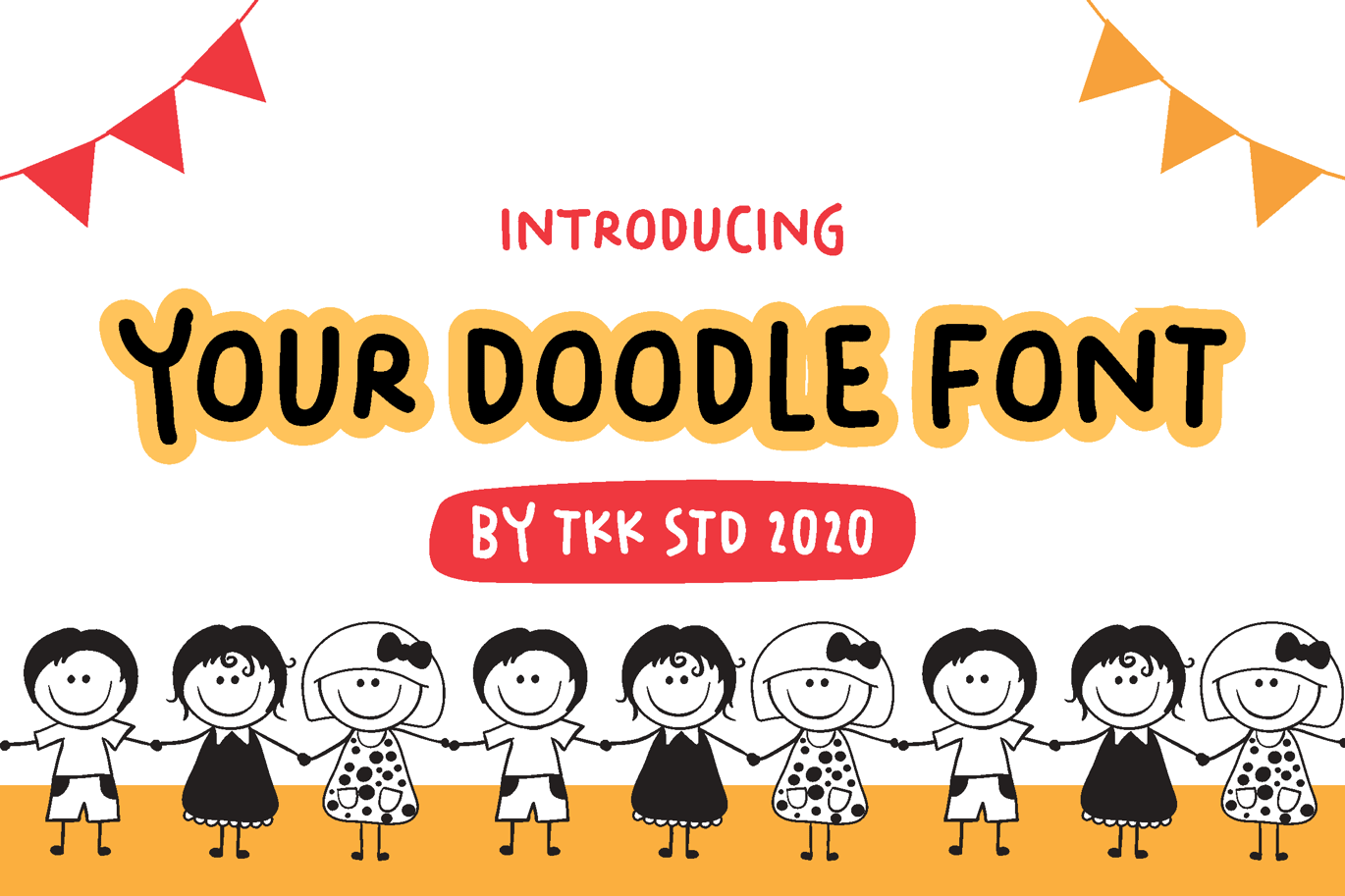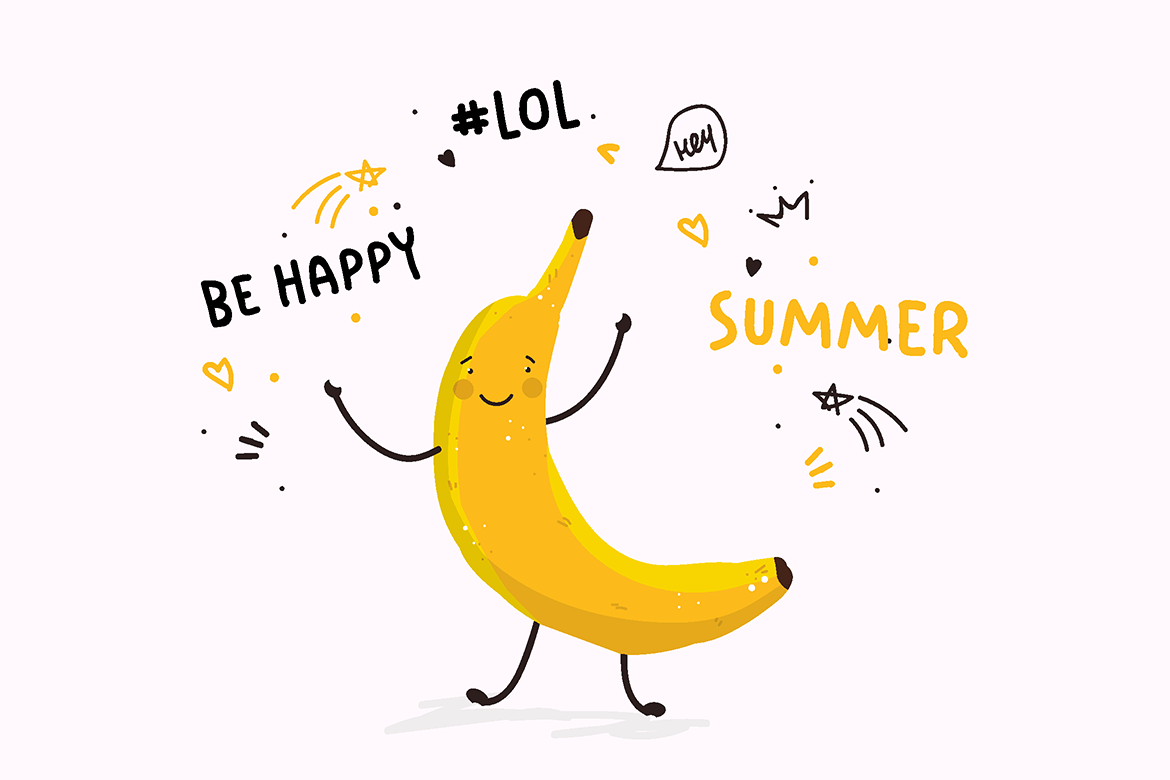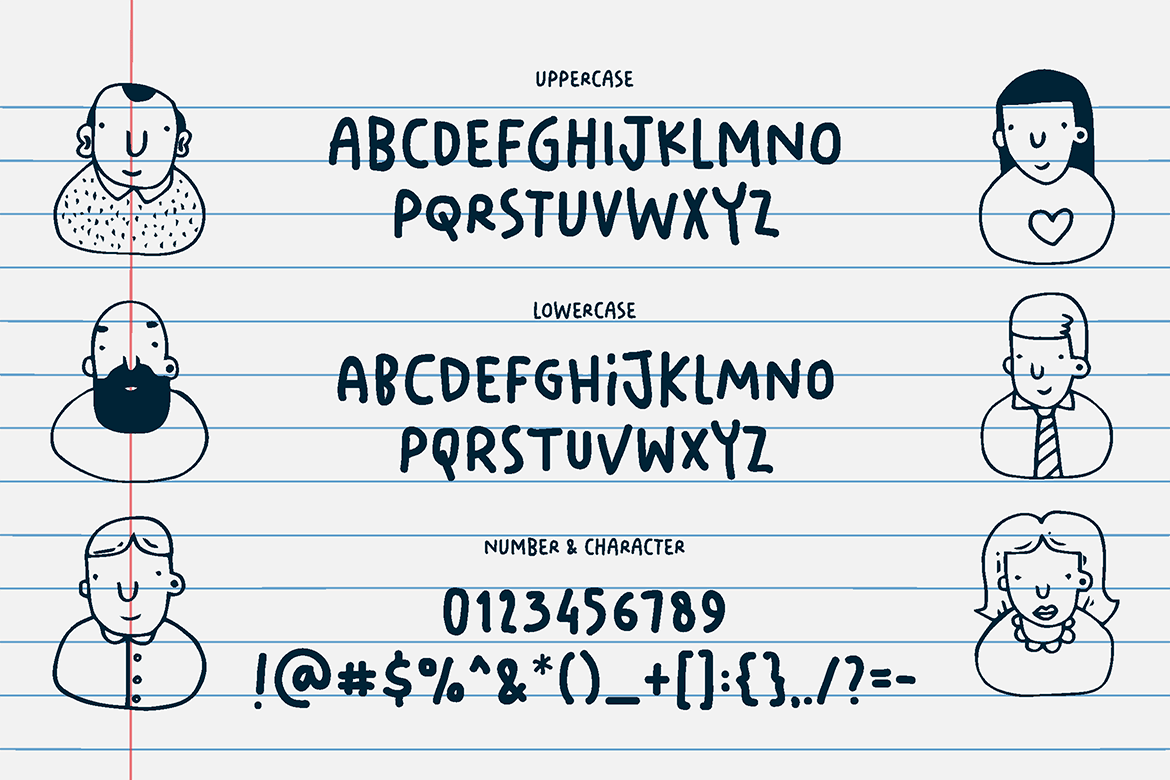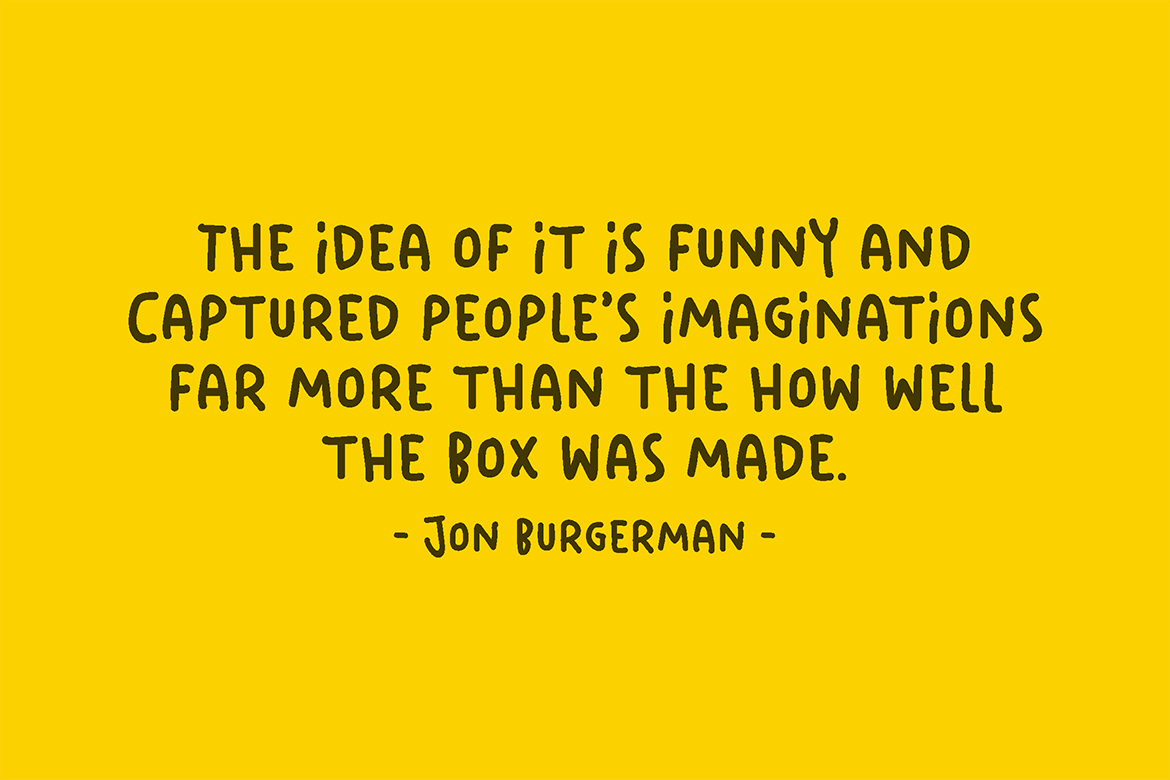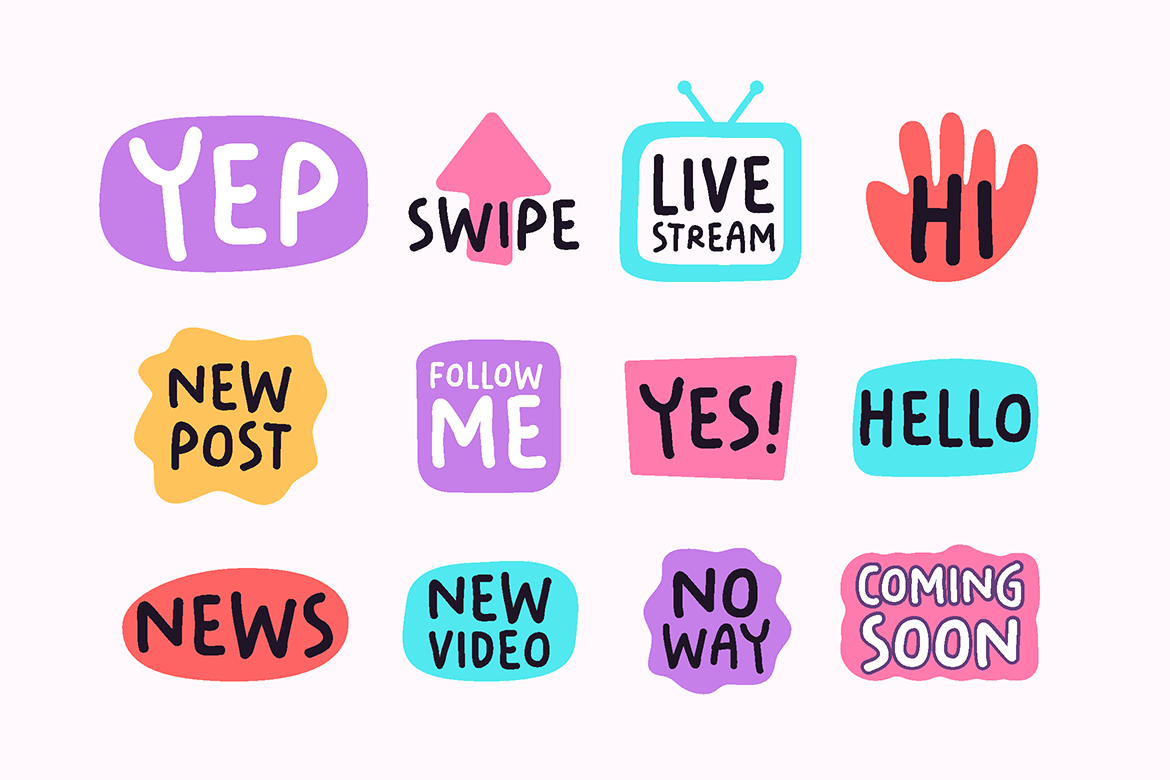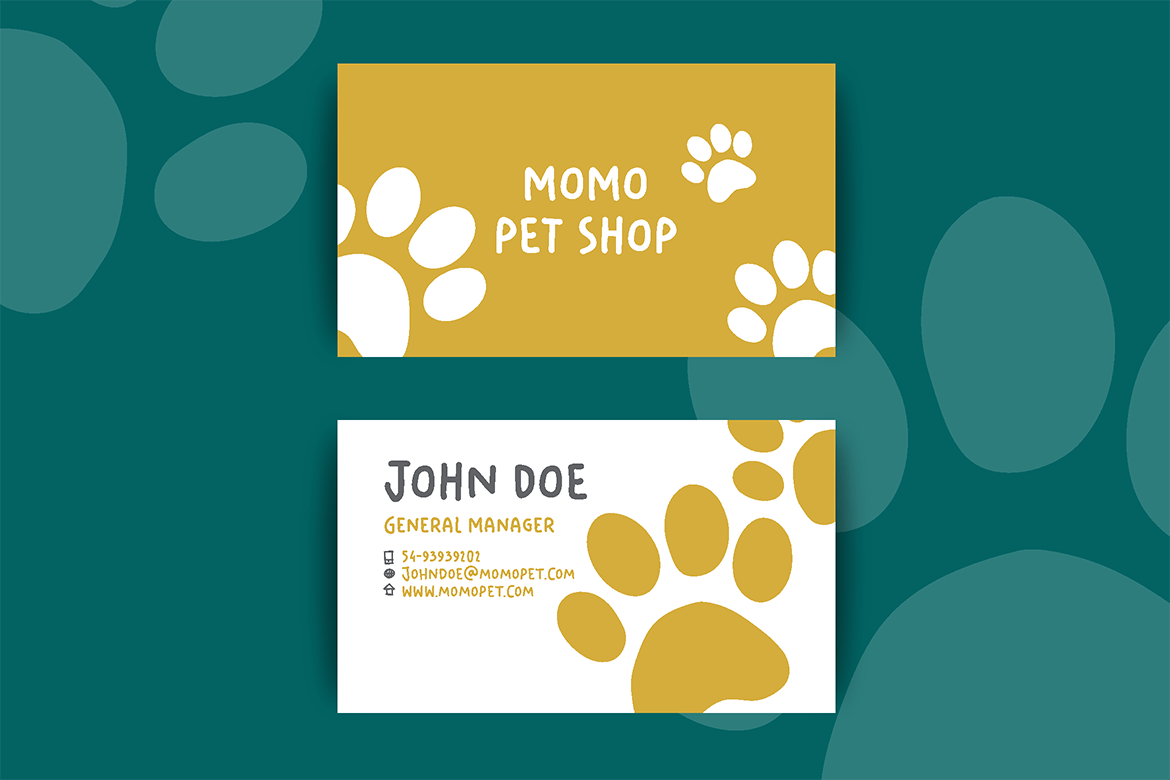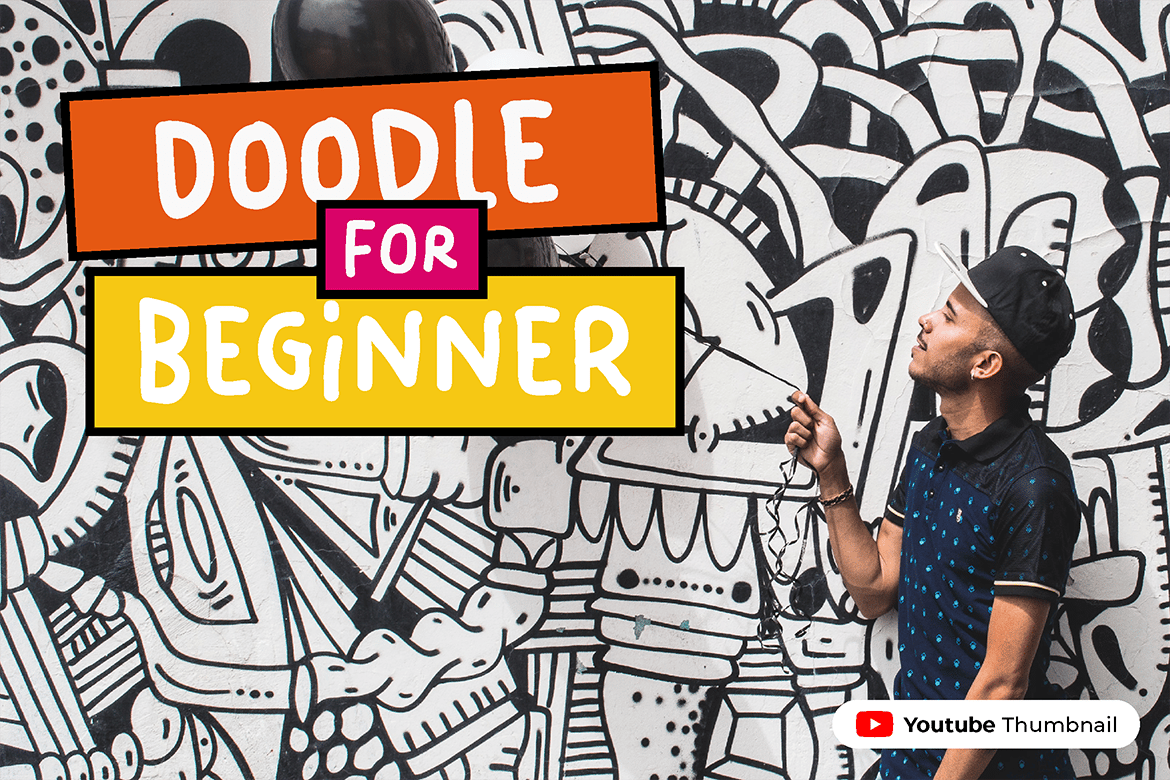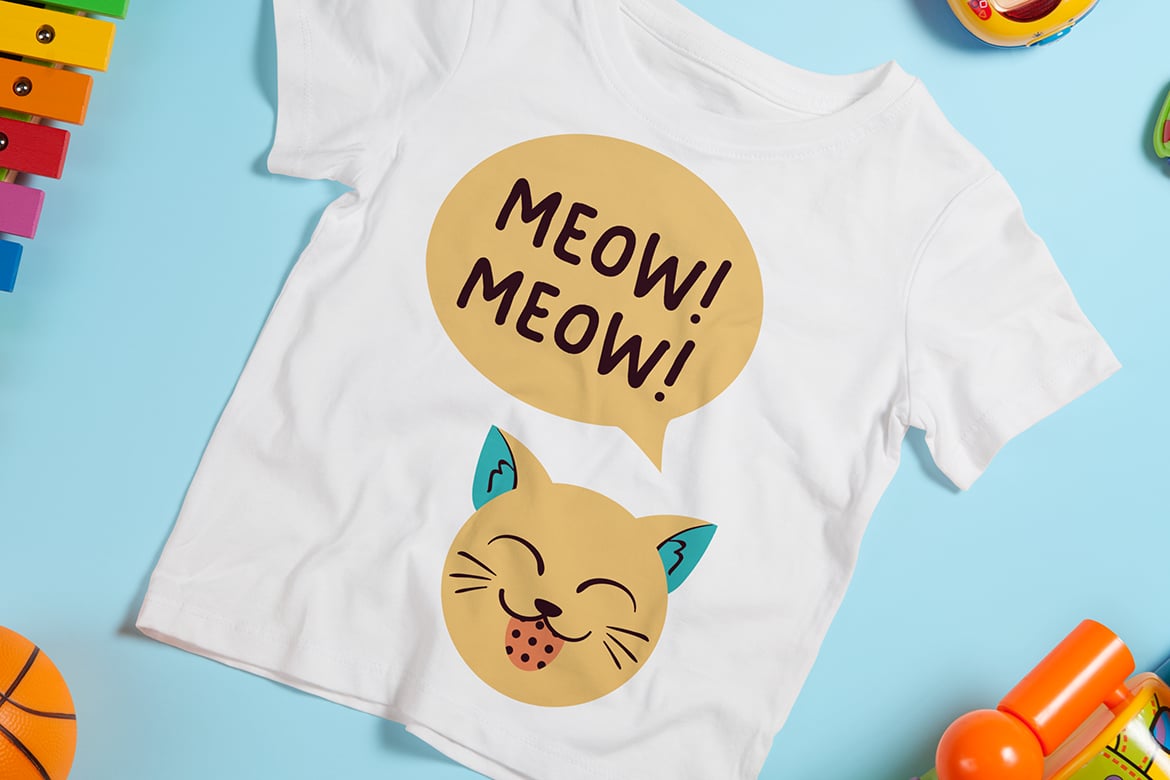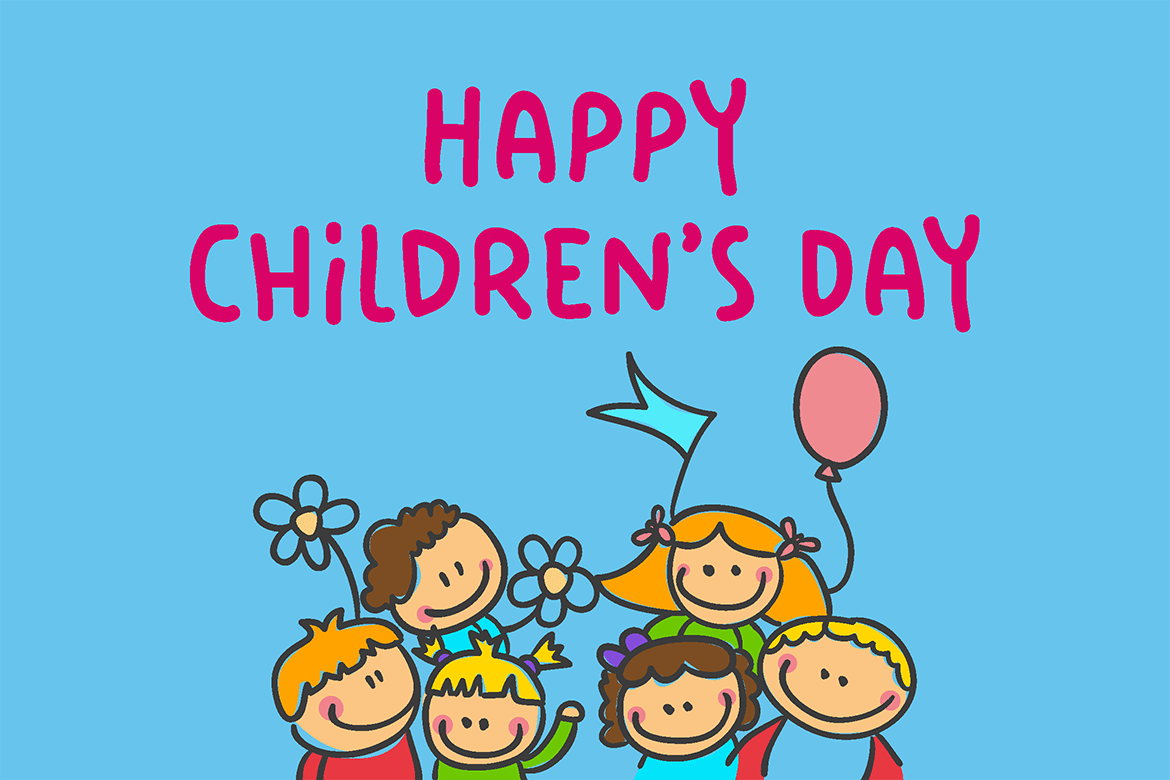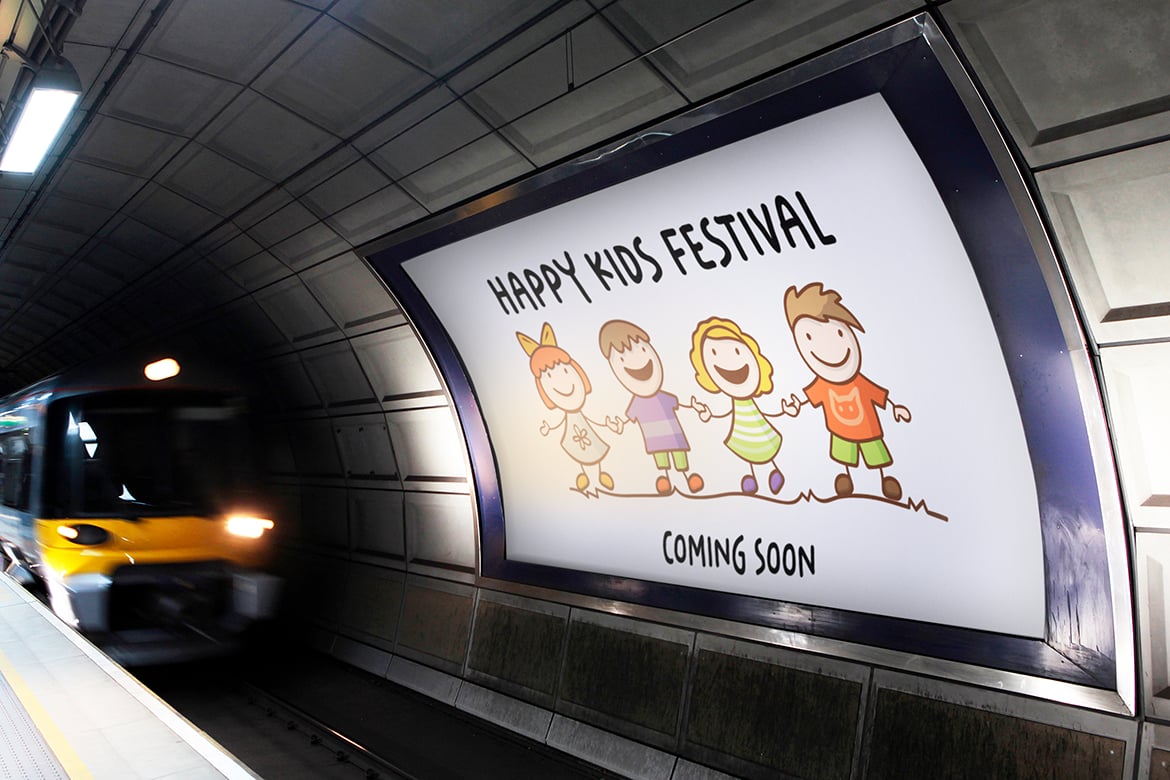
Playful Cartoon Font – Your Doodle Font
YOUR DOODLE FONT – A Friendly & Fun Handwritten Typeface
YOUR DOODLE FONT is a playful, hand-drawn typeface designed to bring a lighthearted, personal touch to your designs. With its casual strokes and doodle-style character, this font feels organic, spontaneous, and full of charm, perfect for informal branding, greeting cards, educational materials, and creative social media designs.
Inspired by sketchbook doodles, speech bubbles, and fun illustrations, YOUR DOODLE FONT is ideal for children’s event posters, friendly product packaging, casual signage, and digital stickers. Whether you’re designing for classroom materials, handmade crafts, or social media engagement, this font ensures a warm, playful, and engaging experience.
Why Choose YOUR DOODLE FONT?
- Handwritten & Playful – Feels like natural doodles with a casual, personal touch.
- Perfect for Informal & Fun Branding – Ideal for kids’ themes, casual packaging, and friendly communication.
- Great for Social Media & Digital Use – Works beautifully for interactive designs, stickers, and messages.
- Versatile Across Print & Web – Perfect for posters, merch, and marketing campaigns.
- Approachable & Friendly – A warm, human touch that makes designs feel more personal.
Bring a fun, doodle-style energy to your designs with YOUR DOODLE FONT!